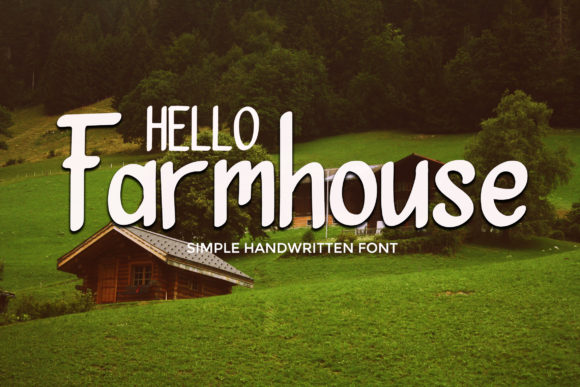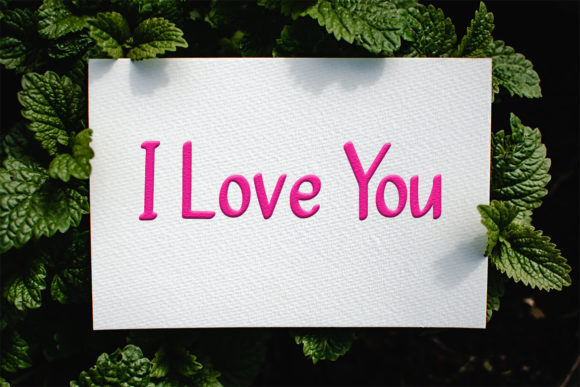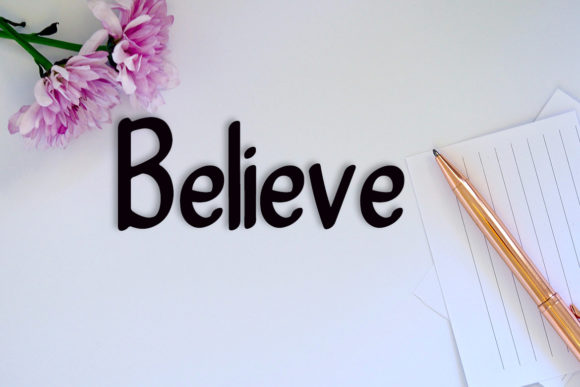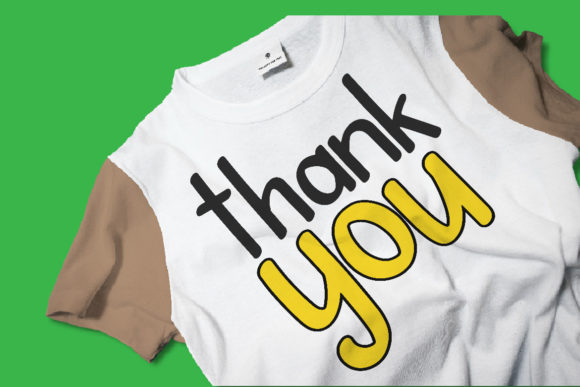
Hello Farmhouse Font
About Hello Farmhouse Font
Hello Farmhouse is a romantic and sweet calligraphy typeface. Its distinct and well-rounded letters make this font a masterpiece. Fall in love with its flexible style and use it to create spectacular designs.